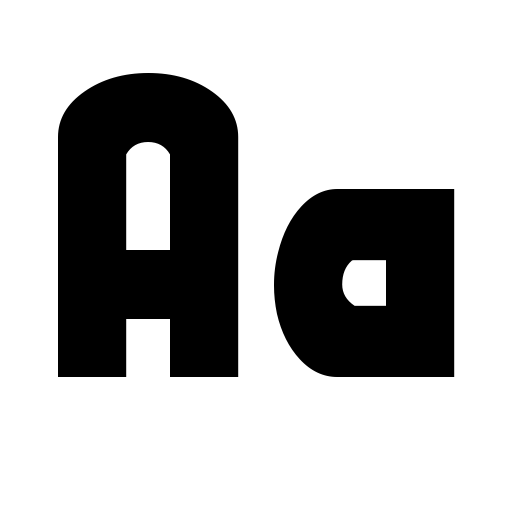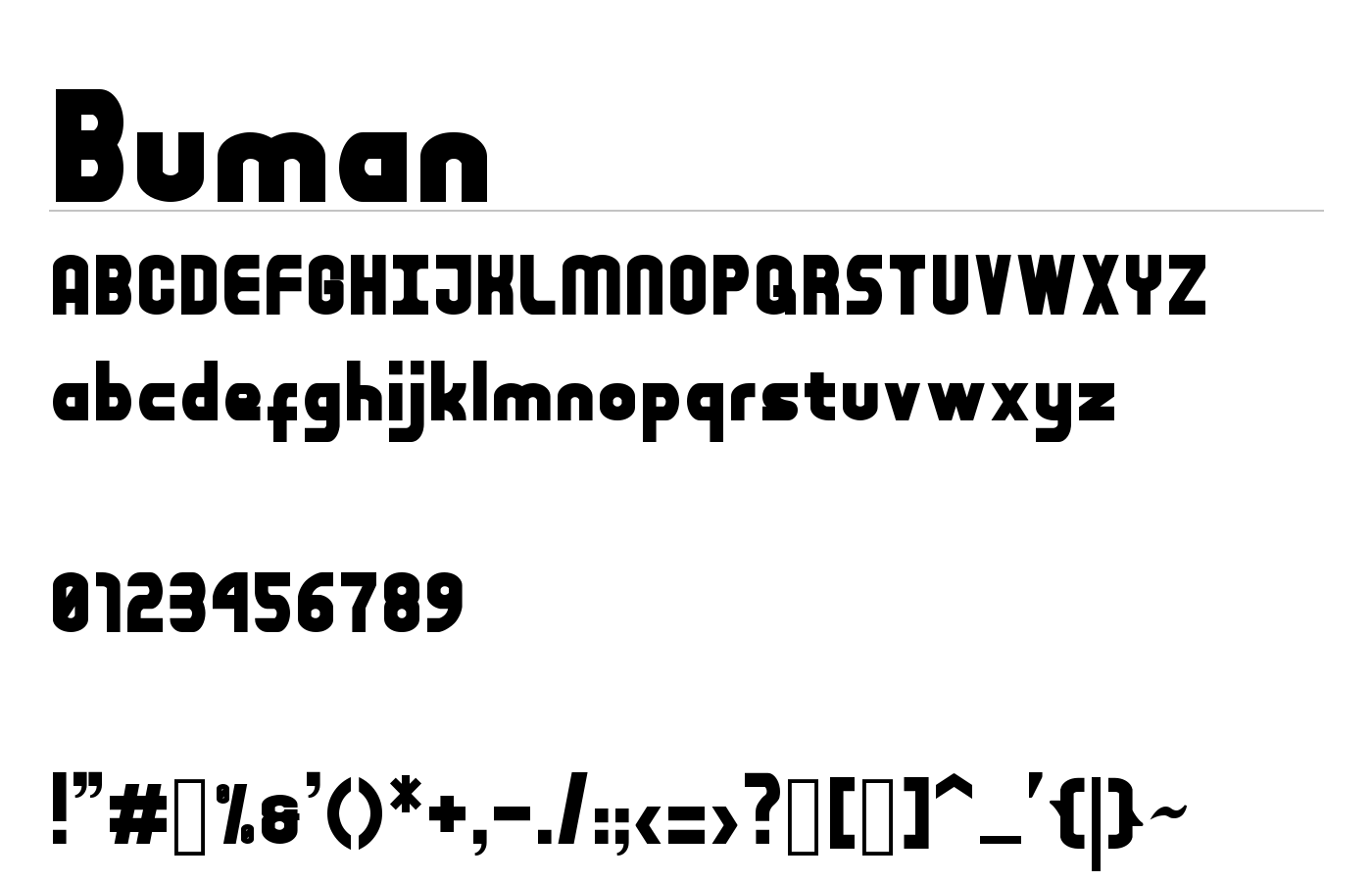
Buman is a bold, geometric sans-serif font with a condensed width and a strong, modern presence. Its blocky, uniform letterforms with rounded corners and distinctive quirky details give it a playful yet solid character, making it ideal for attention-grabbing headlines, logos, and branding that seeks a contemporary, approachable vibe. This font works well where clarity and impact are needed, combining uniqueness with readability.
Buman Font
About Buman Font